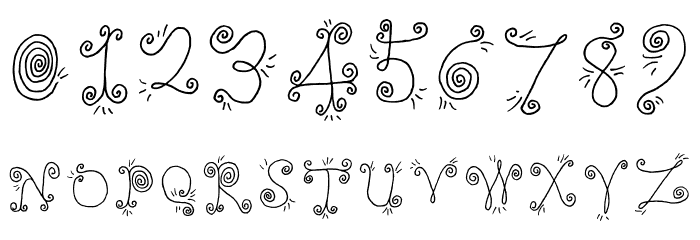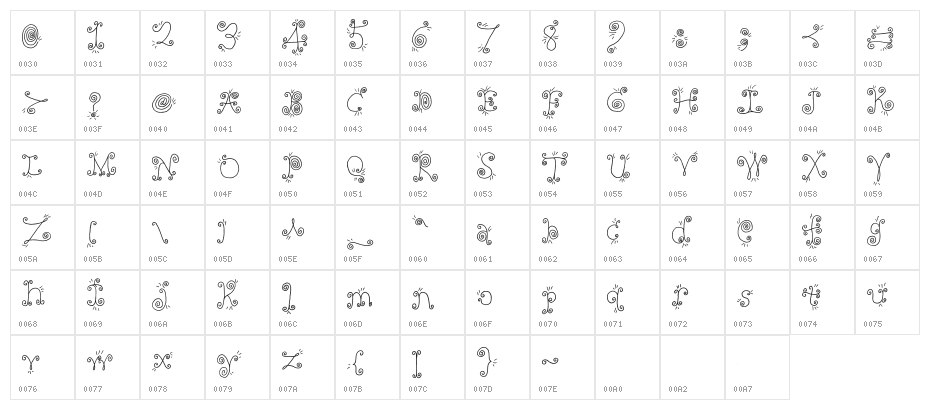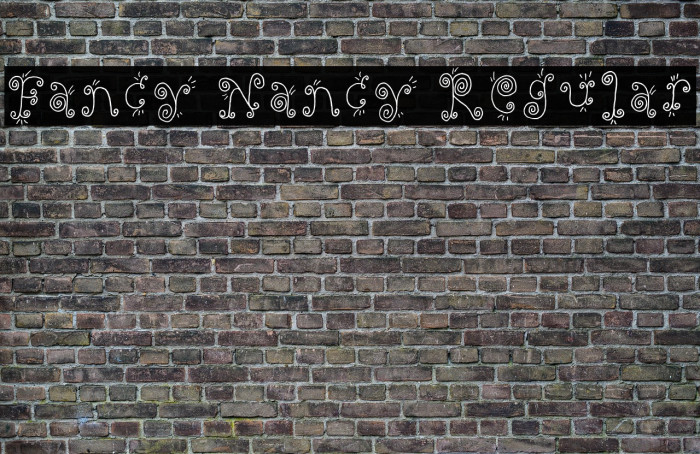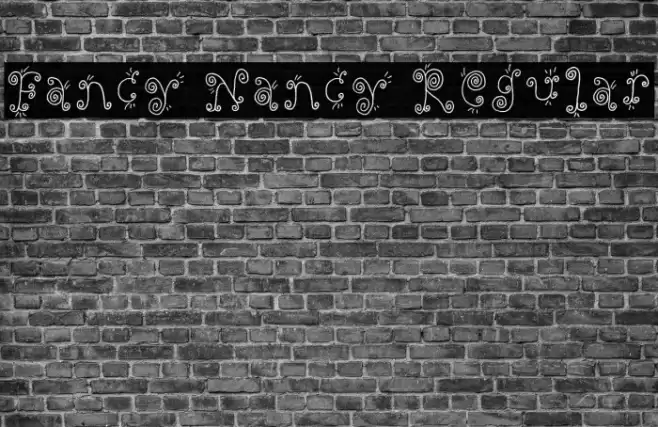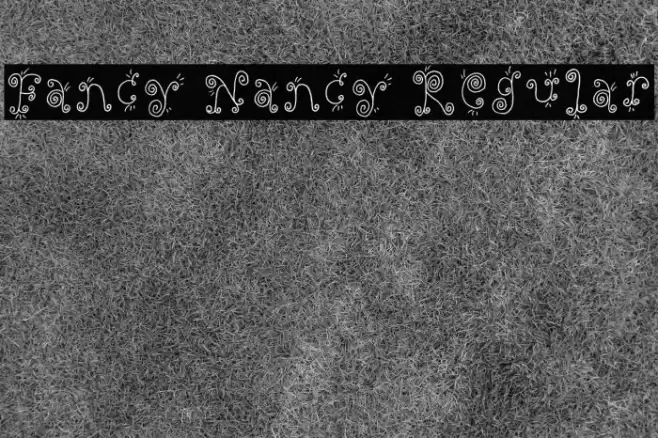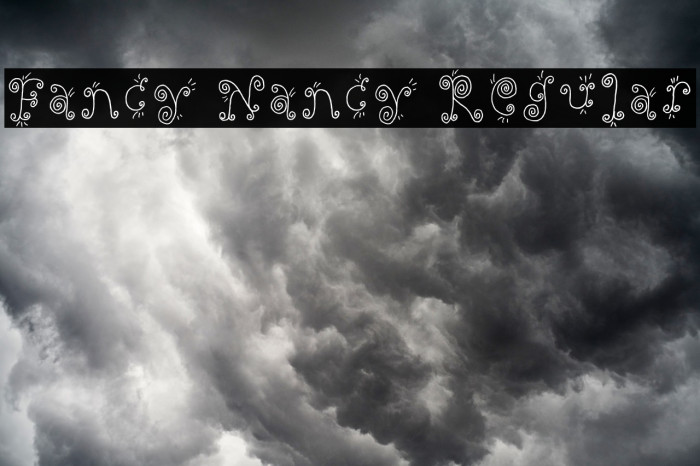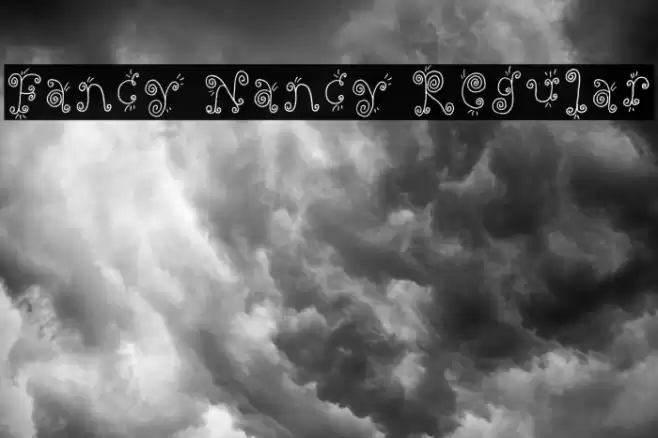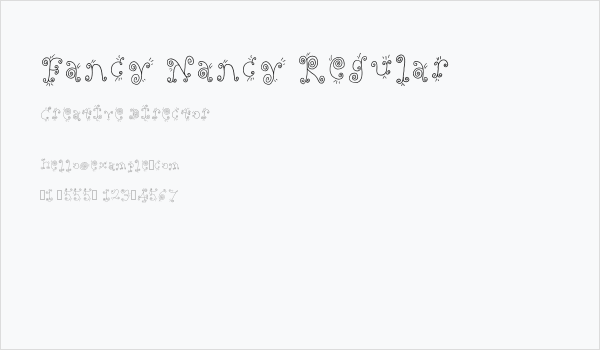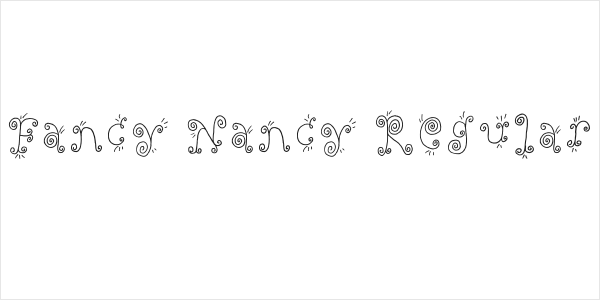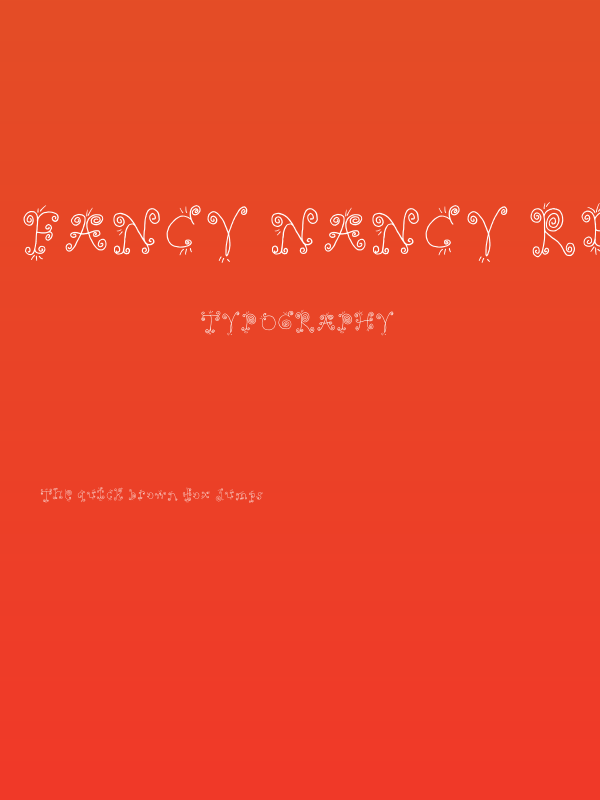
Fancy Nancy Regular Font
Fancy Nancy Regular Description
This whimsical and decorative font features intricate swirls and curls that give each character a playful and artistic flair. The letters are adorned with small embellishments, such as dots and lines, adding to their ornate appearance. The font maintains a consistent style across uppercase, lowercase, and numeric characters, with each glyph exhibiting a unique, hand-drawn quality. The overall design is reminiscent of a fairy tale or fantasy theme, making it ideal for creative and imaginative projects. Its distinctive style ensures that it stands out, capturing attention with its elaborate and fanciful details.
| Proposed Projects | Ideal for children's books, fantasy-themed invitations, greeting cards, and creative branding. |